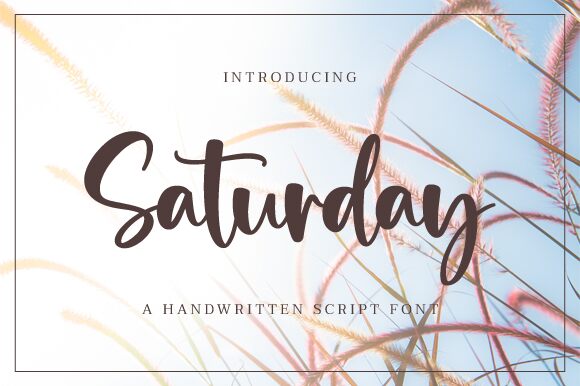
Saturday
Saturday is a charming handwritten font created by Graphix Line Studio.
With its playful and organic feel, this font is perfect for a wide range of projects, from wedding invitations and greeting cards to branding materials and social media graphics. The semi-bold font weight adds a touch of sophistication, while the medium width makes it easy to read both in print and online.
Whether you're working on a cozy café menu or designing a children's book cover, Saturday brings a warm and personal touch to any project. Let your creativity flow with this delightful typeface!